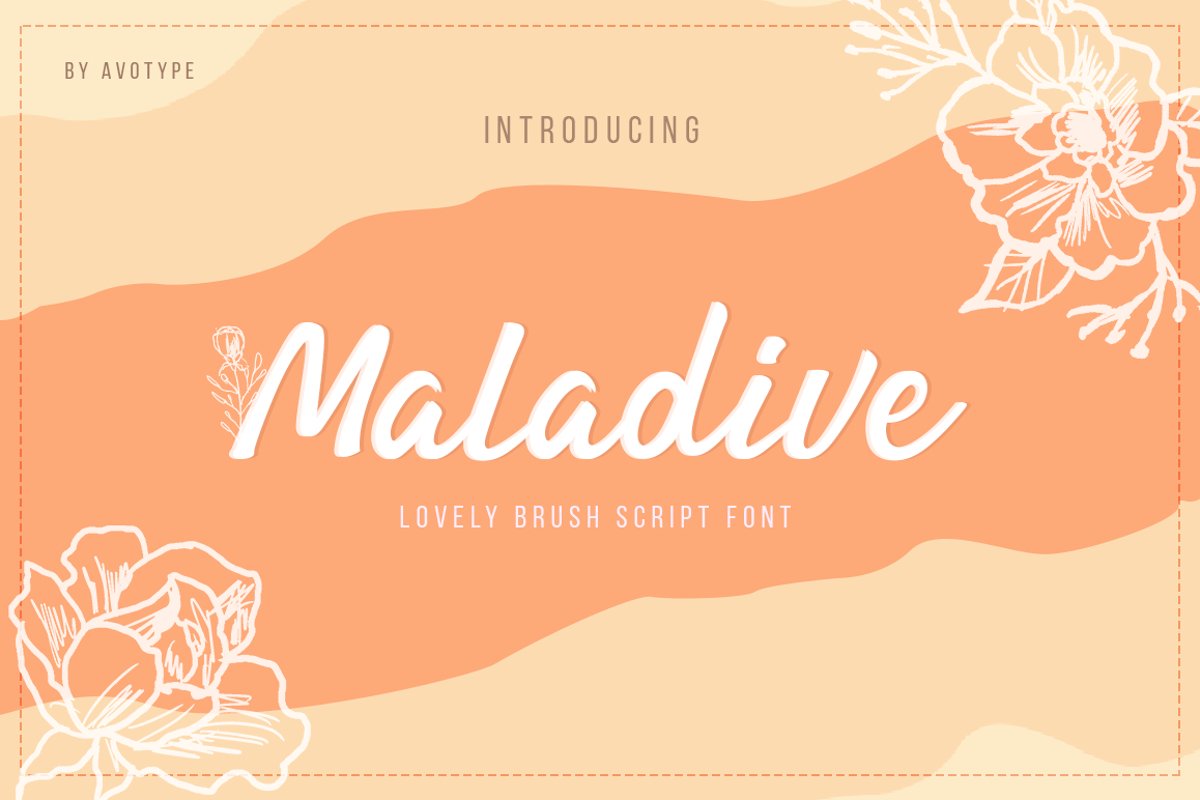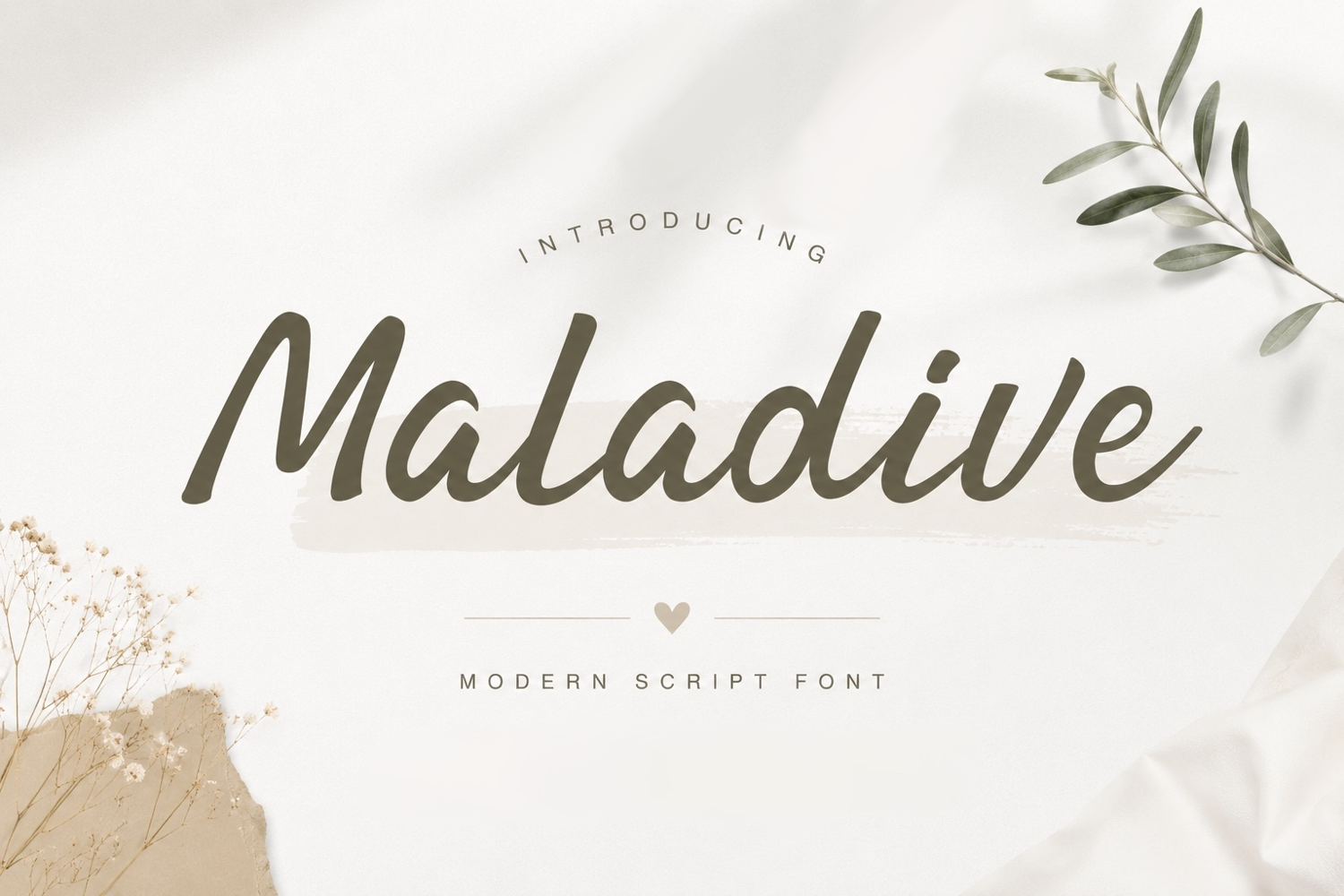
Maladive | Modern Script Font
Maladive
Introducing Maladive, an elegant modern script font designed with smooth handwritten strokes. Created for makers, designers, crafters and business owners who want a soft and sophisticated branding look.
♡ Logos
♡ Product Packaging
♡ Candle Labels
♡ Soap Branding
♡ Beauty Brands
♡ Wedding Invitations
♡ Thank You Cards